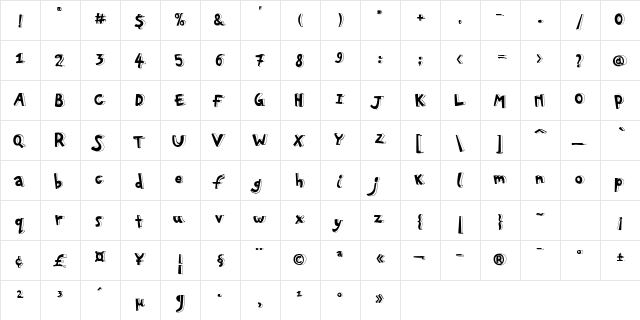
PF Playskool Pro 3D Regular
Design Context for PF Playskool Pro 3D Typeface
PF Playskool Pro 3D is a composed and adaptable typeface that performs quietly and consistently across a wide range of design contexts.